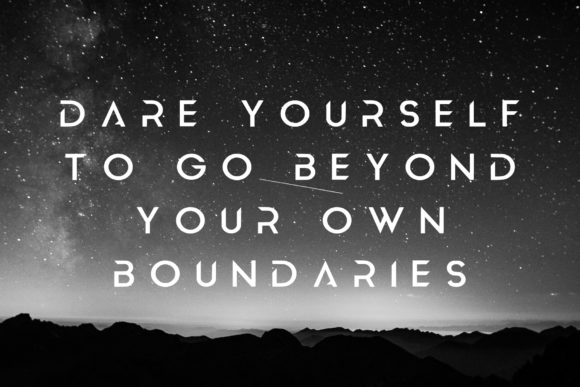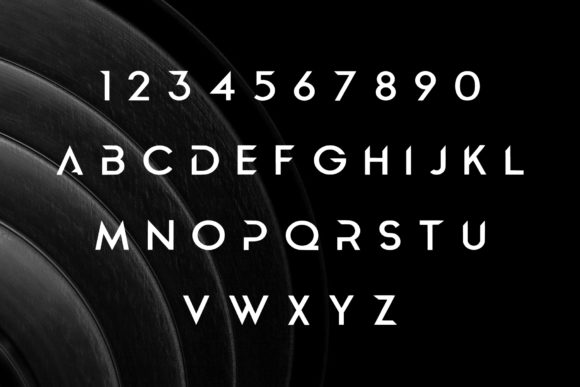
Unlocking the Future of Typography
You’ve spent hours pouring over design concepts, experimenting with colors and shapes, and tweaking every detail. And then, it hits you – a spark of inspiration that takes your project to the next level. For designers, those moments are what make the creative process so exhilarating. But sometimes, all it takes is the right font to push your vision beyond the ordinary.
Enter Beyond Font, a futuristic and clean sans serif font designed to transport your audience to a world of science fiction and robotics. With its sleek lines and modern aesthetic, Beyond Font is perfect for any project that demands a touch of otherworldliness. Whether you’re designing a futuristic cityscape or a robot’s interface, this font is sure to take your design to new heights.
As a designer, you know how much a great font can elevate your work. Beyond Font is no exception – its versatility and unique style make it a valuable addition to any designer’s toolkit. So why settle for ordinary when you can go Beyond Font and unlock the full potential of your creativity?
Beyond Font Key Features
- High-Quality Graphics: Features intricate details and high-resolution graphics, resulting in a visually stunning and professional font.
Designer Review: Beyond Font
As a designer, I was excited to dive into Beyond Font, a font that promises to take my designs to the next level. Here’s my honest review.
- Extensive Character Set: Beyond Font offers an impressive range of characters, including accented letters, symbols, and glyphs, making it perfect for multilingual designs.
- High-Quality Vectors: The font’s vectors are smooth and well-crafted, ensuring seamless scaling and rendering in various applications.
- Easy Customization: The font’s intuitive design makes it simple to adjust the weight, style, and spacing to fit my design needs.
Overall, I’m impressed with Beyond Font’s capabilities and features. While it’s not perfect, its strengths far outweigh its limitations. I’d recommend it to designers looking for a versatile and high-quality font. With a few tweaks to address the compatibility issues, I believe Beyond Font has the potential to become a go-to font in the design community.
Getting the Most Out of “Beyond Font”
For the best results, use “Beyond Font” in combination with bold or italic text to add emphasis. You can also experiment with different font sizes and colors to create a unique visual effect.
“Beyond Font” is ideal for creative projects such as logos, brochures, and infographics. It can also be used to add a personal touch to presentations and documents.